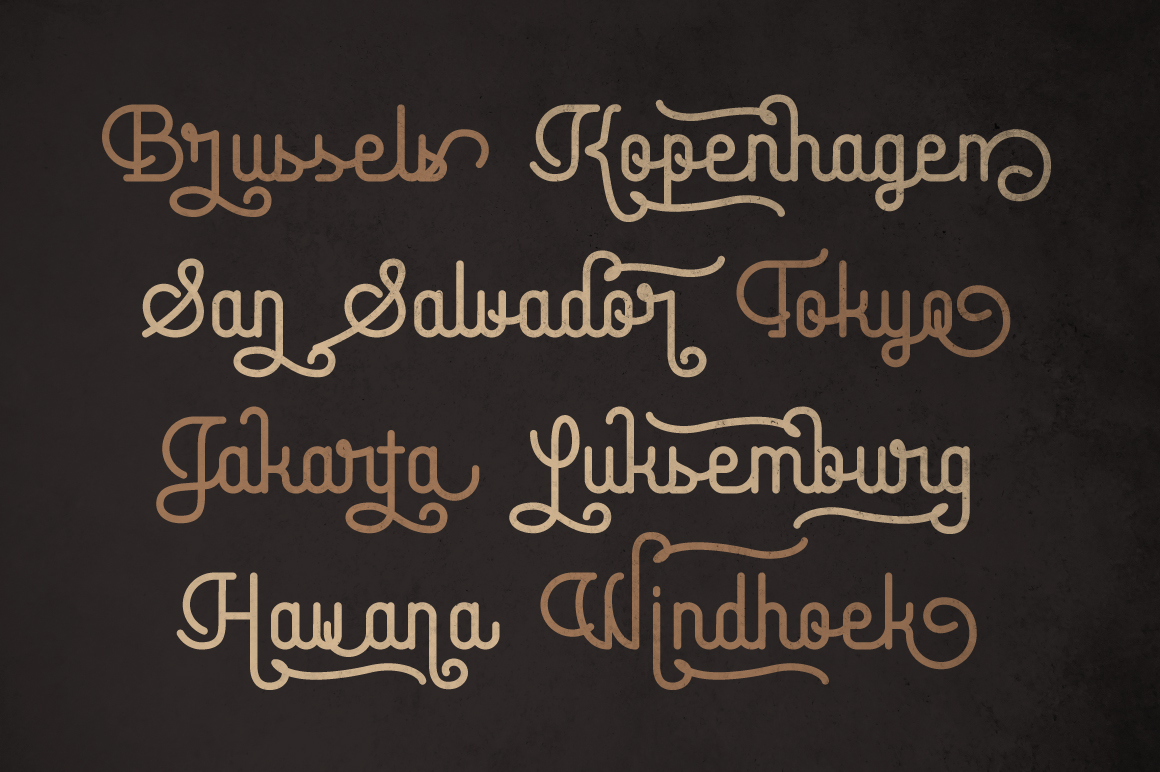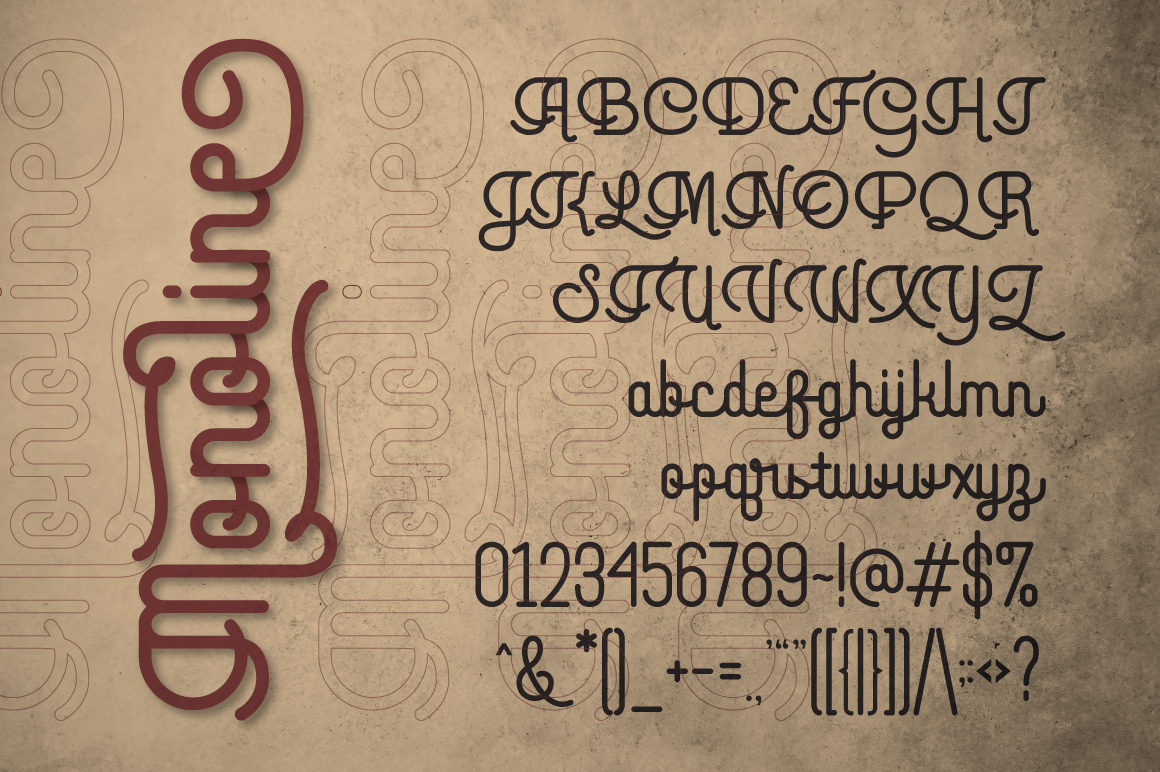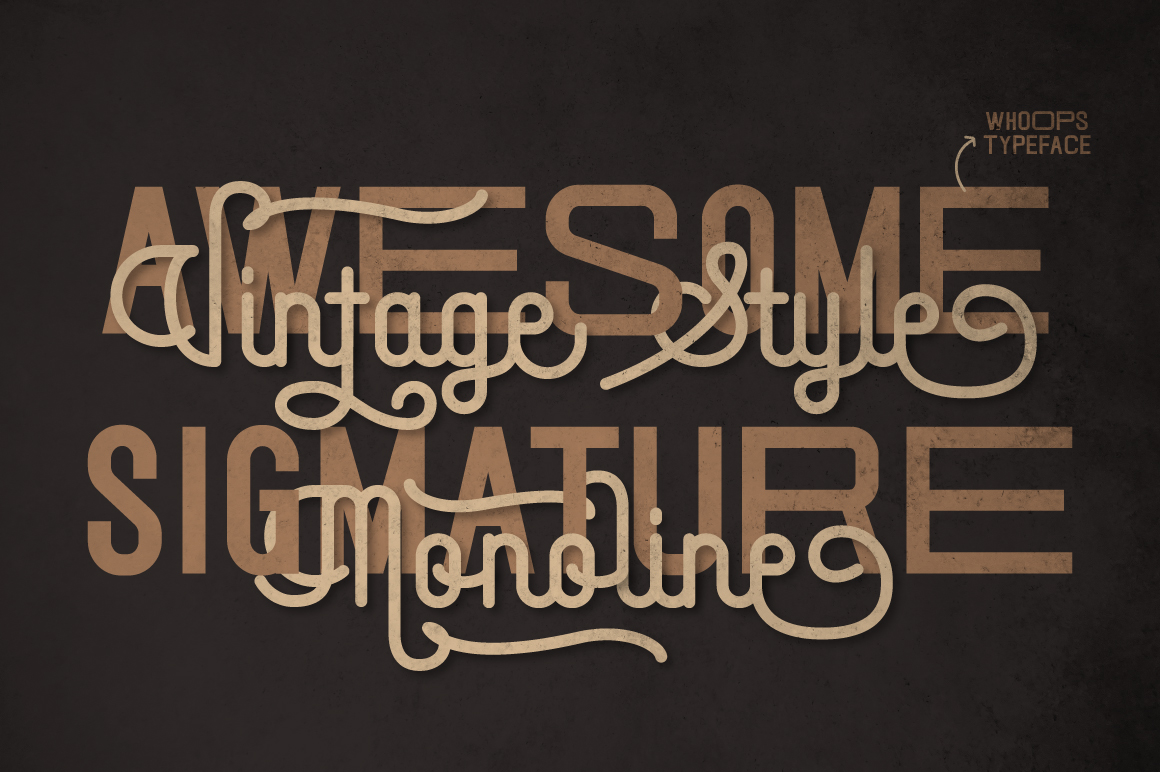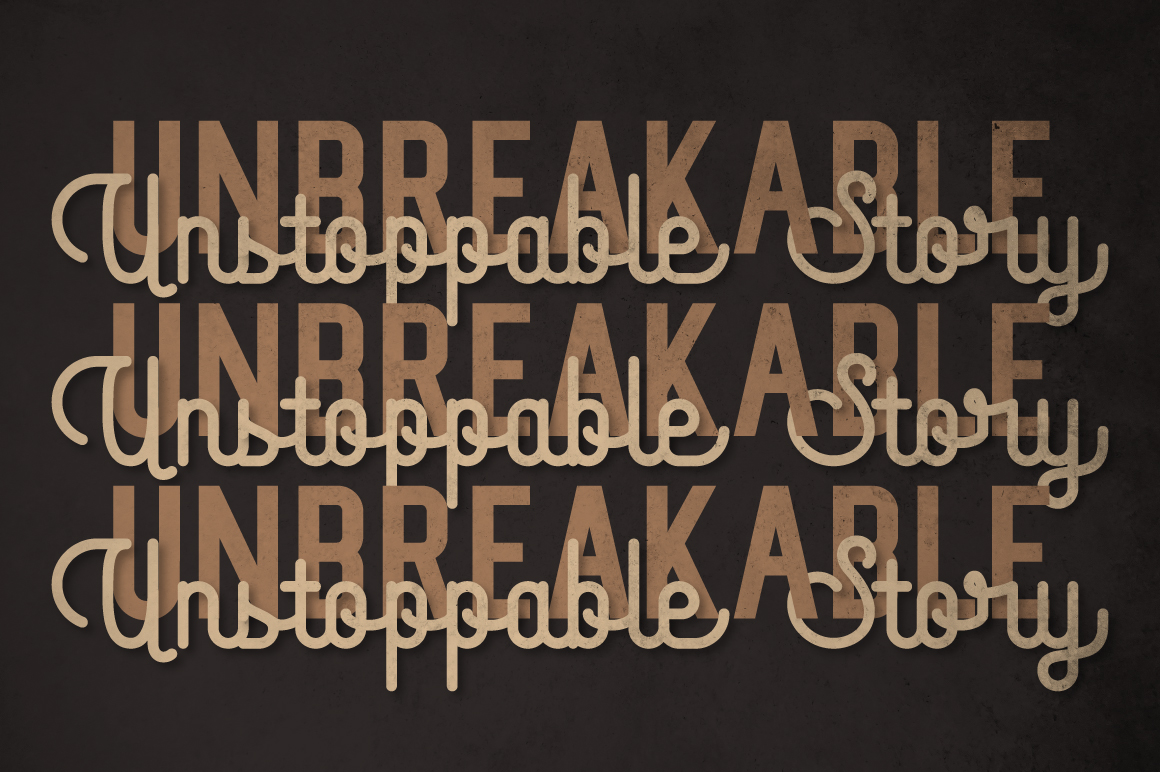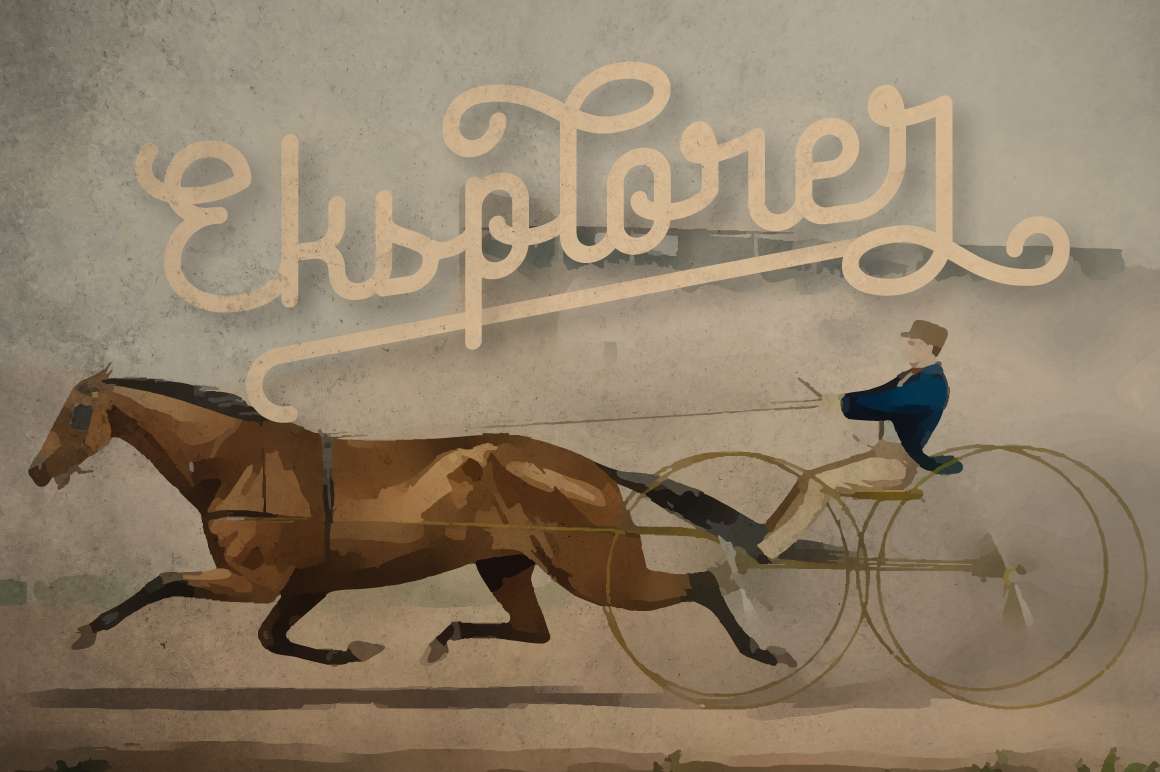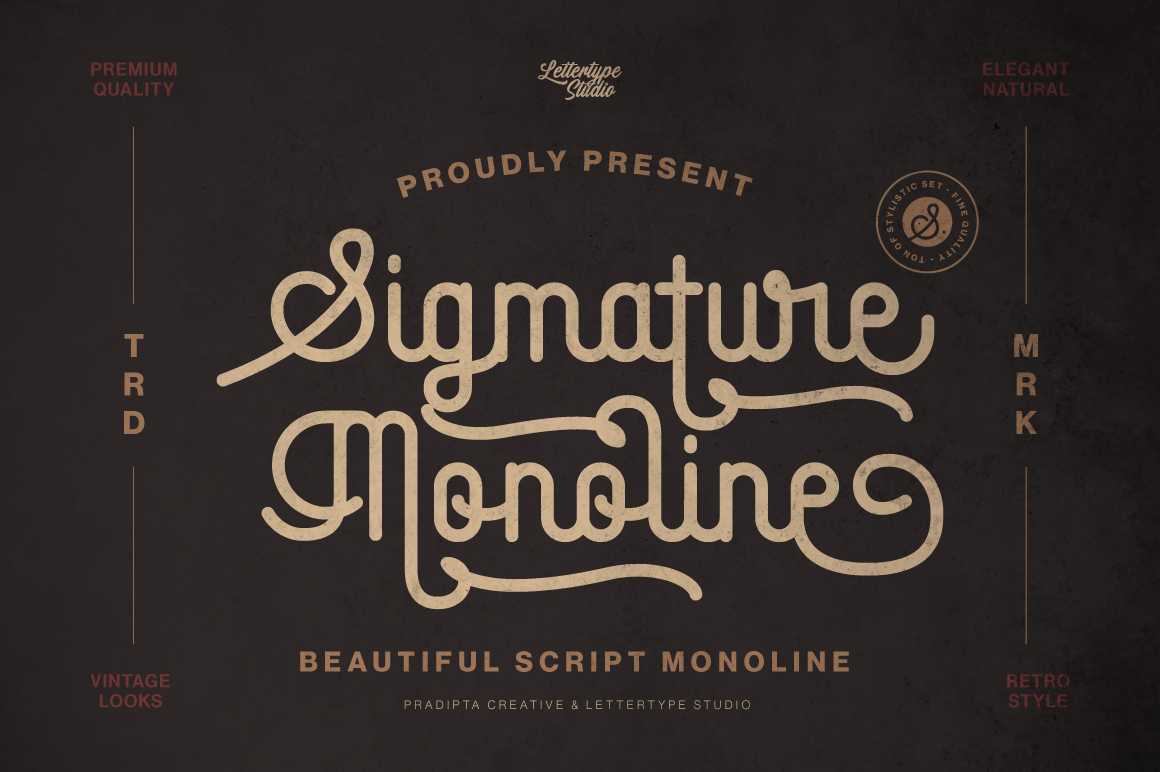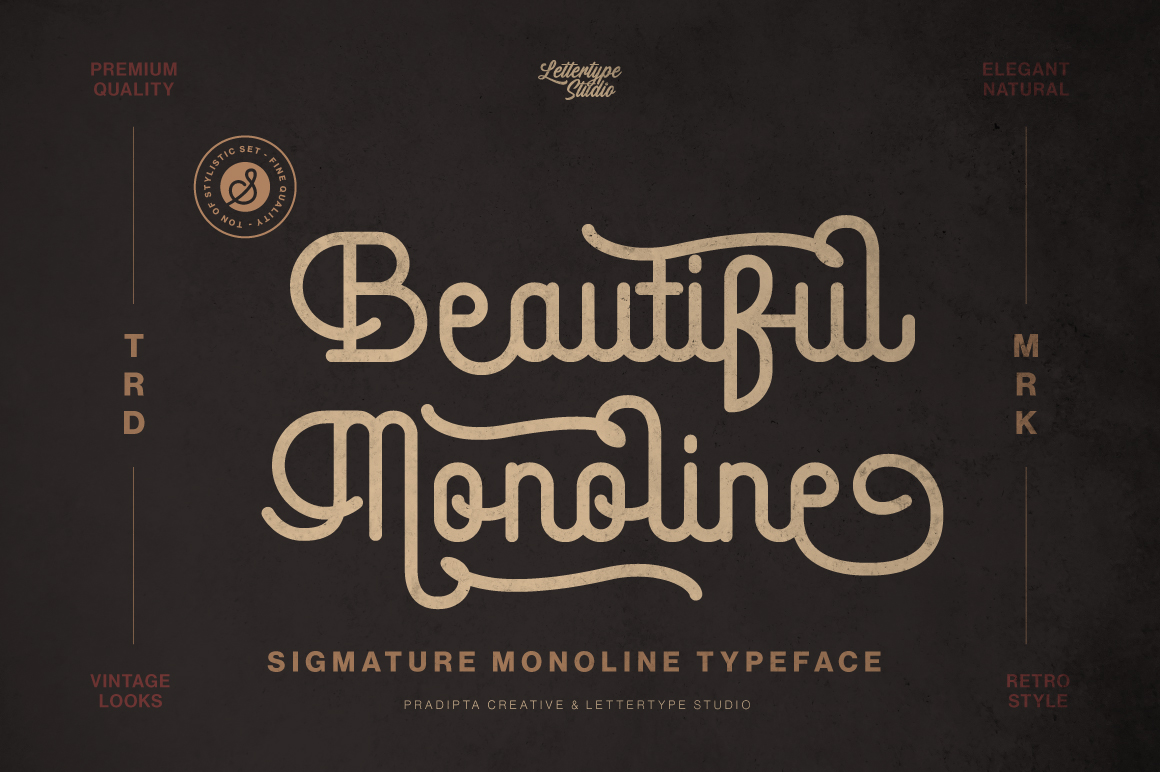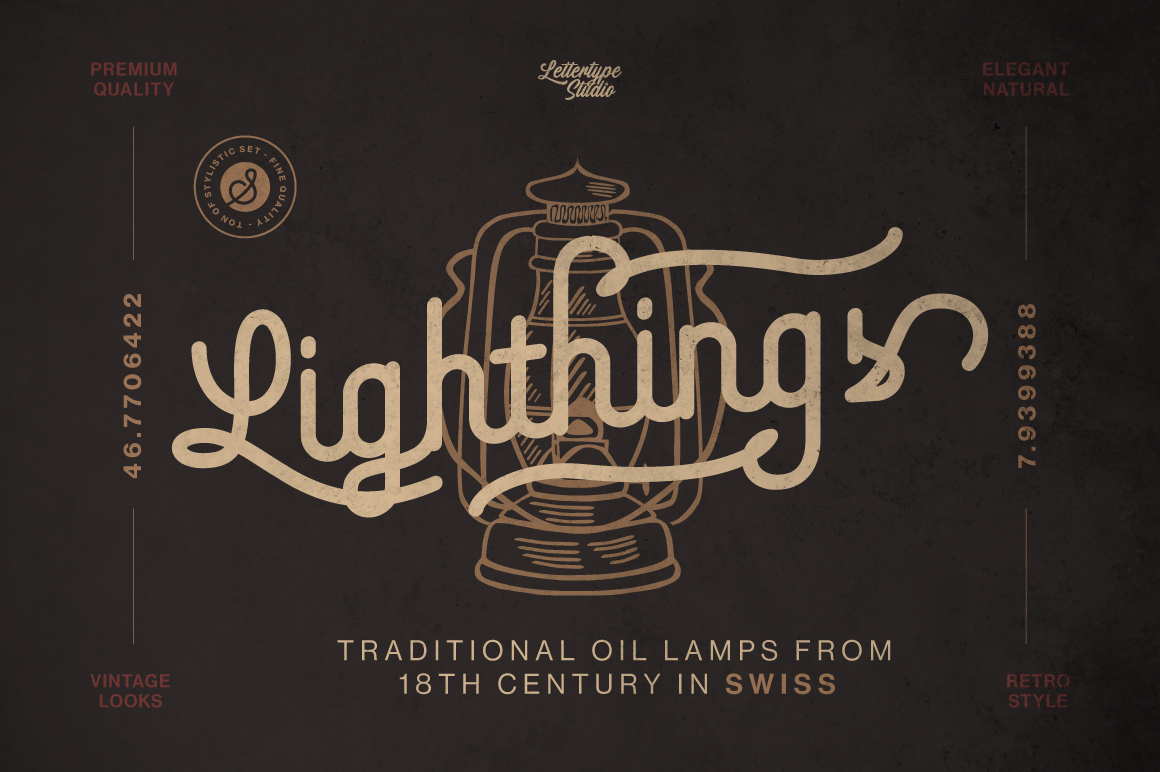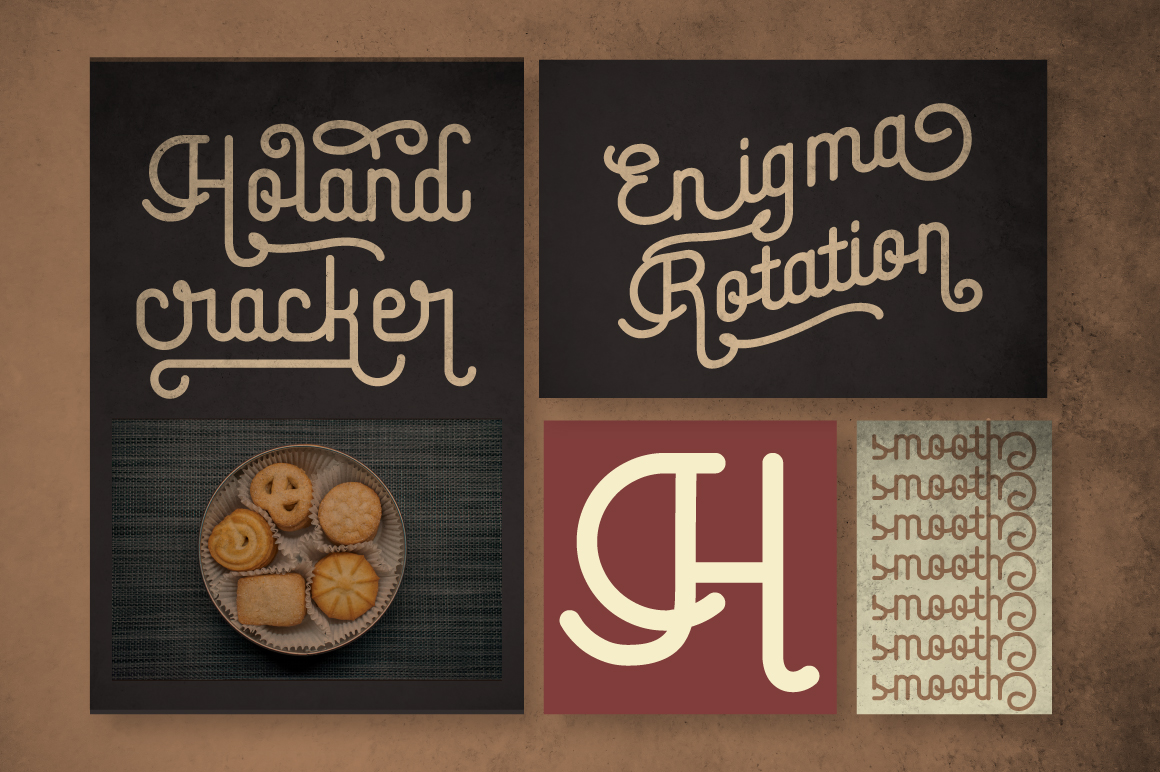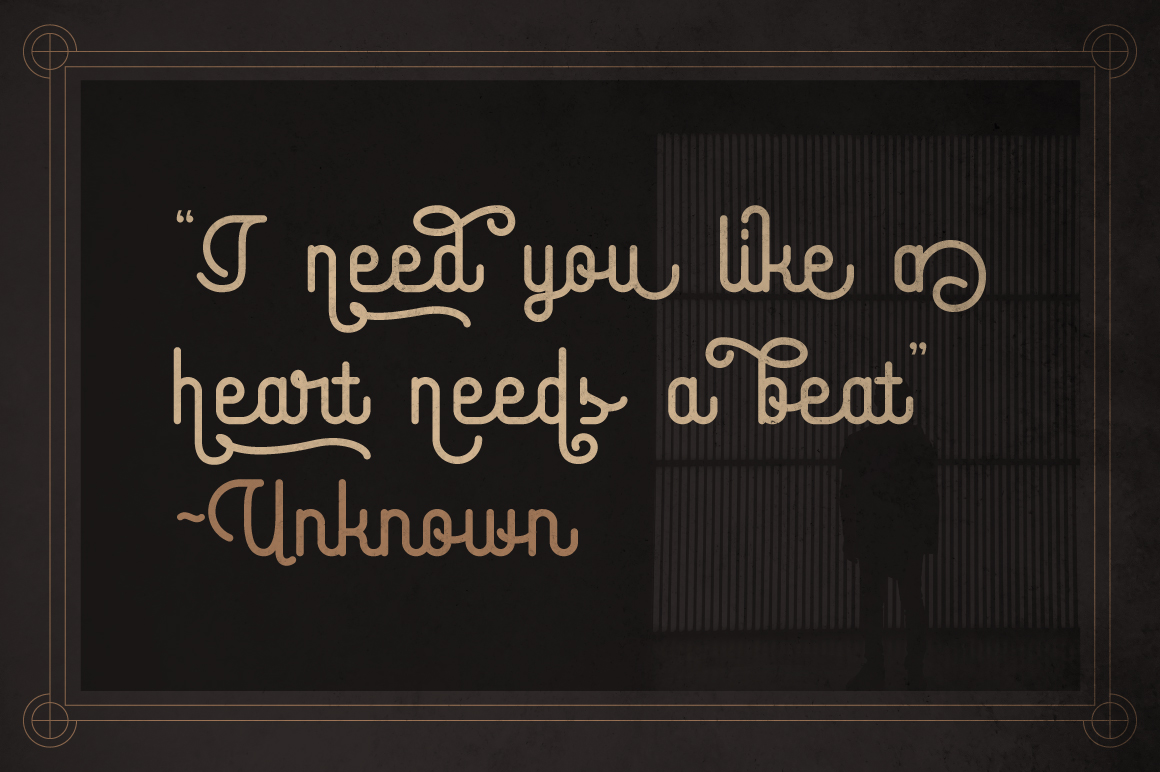
Sigmature Monoline
Sigmature Monoline is a beautifully crafted script font that merges vintage charm with modern elegance. Featuring over 285 stylistic alternates and 22 smooth swashes, it offers limitless creative potential for designers who value precision and style.
Perfect for logos, packaging, apparel, and retro-inspired branding, Sigmature Monoline brings a timeless handwritten feel to any project. With its consistent line weight and graceful flow, this typeface captures the essence of craftsmanship and sophistication in every stroke.
Sigmature Monoline Features:
• Lowercase & Uppercase
• Numerals & Punctuation
• Alternates & Ligatures
• Multilingual Support